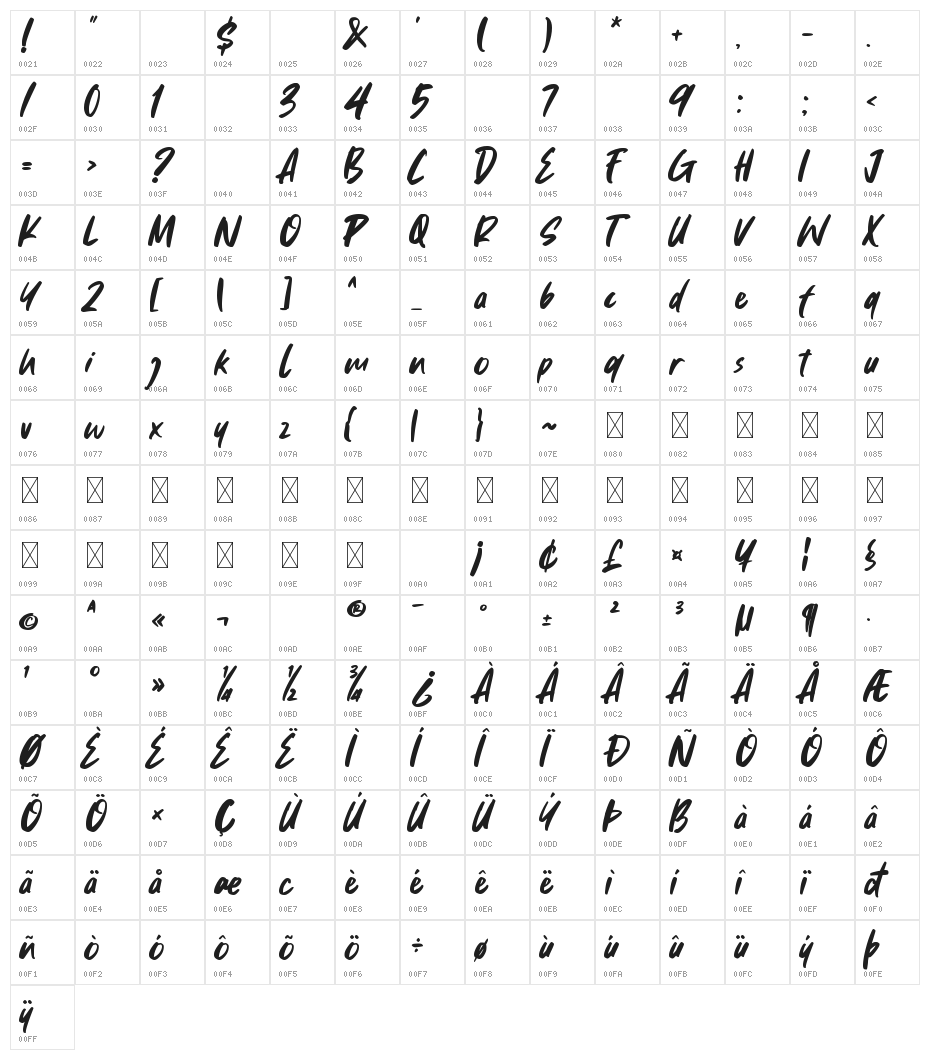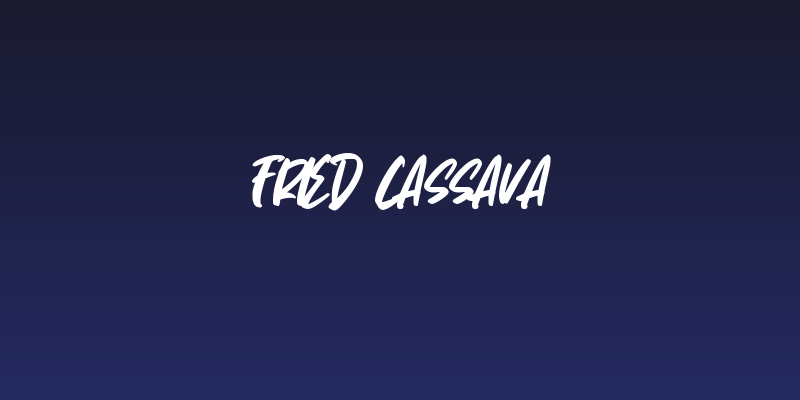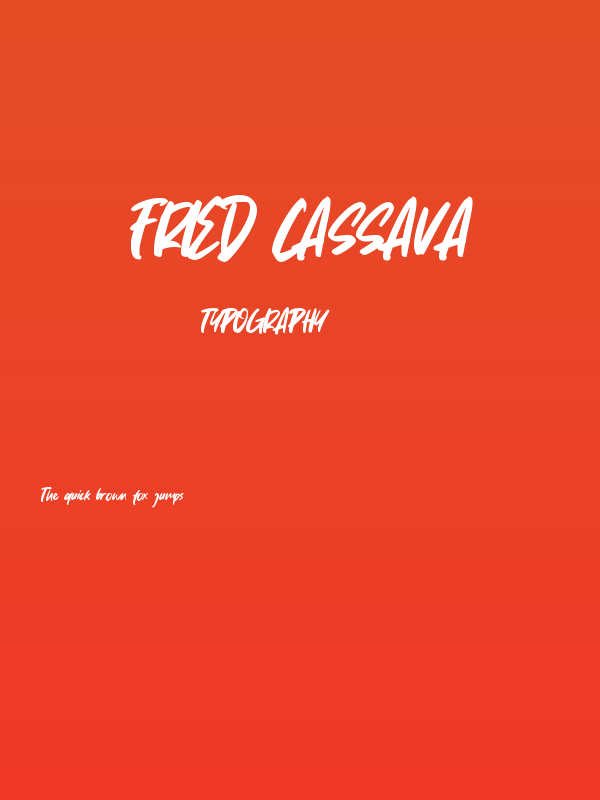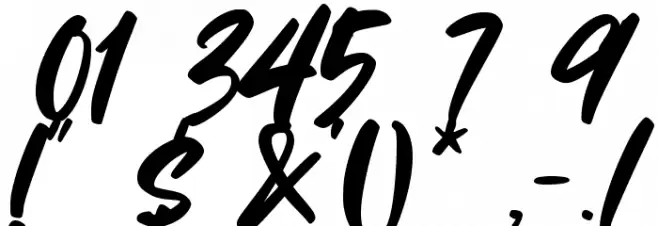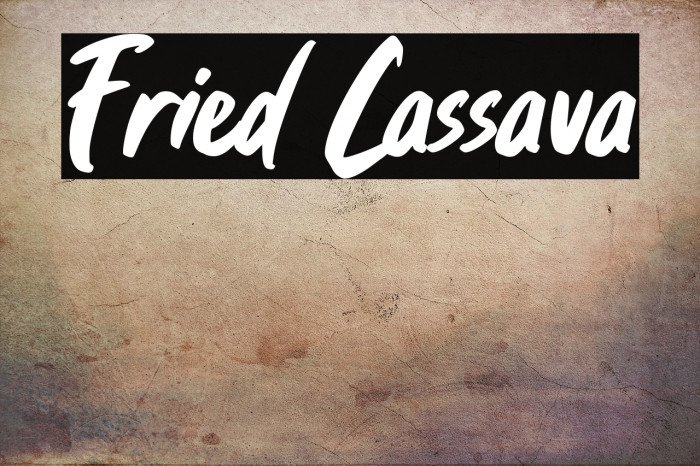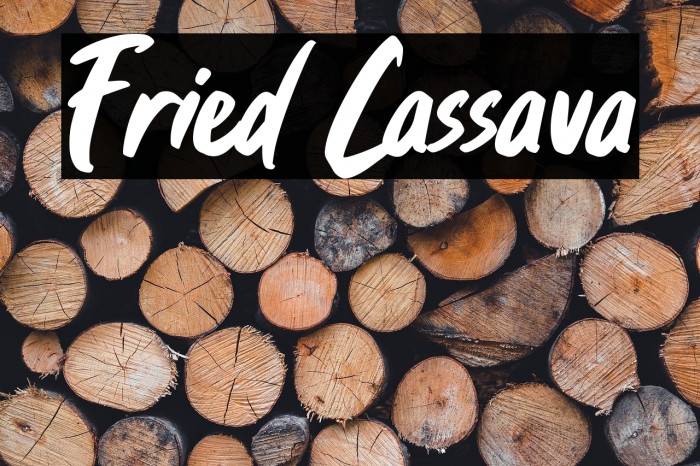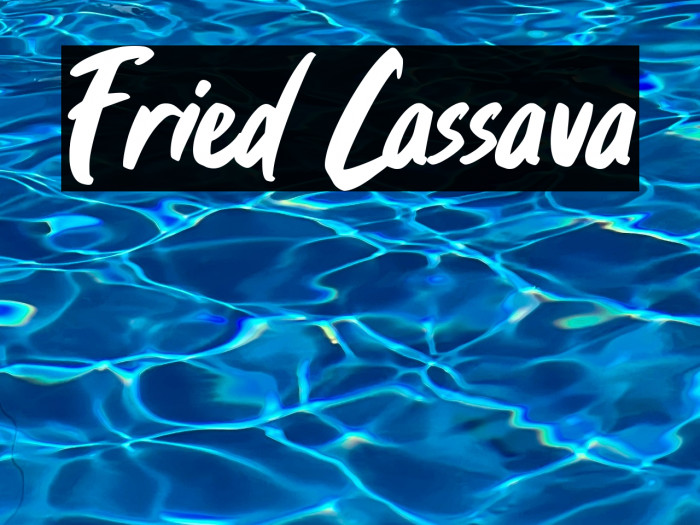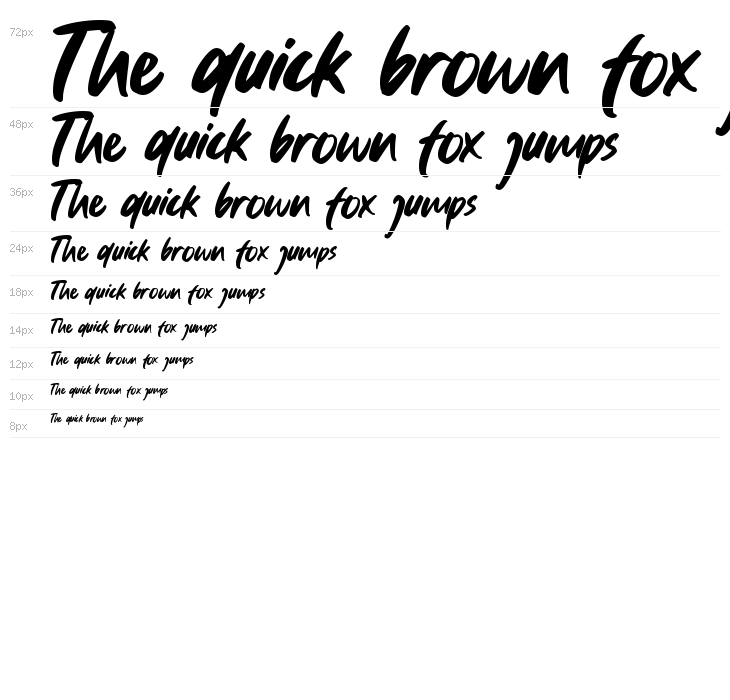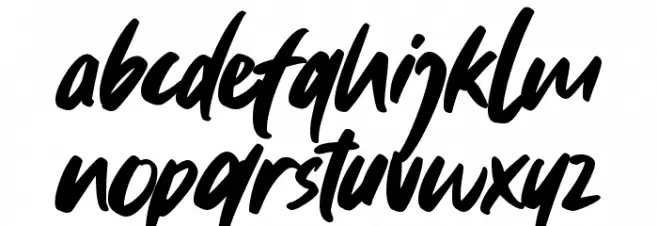
Fried Cassava Font
Fried Cassava Description
This font exhibits a bold, energetic script style with a hand-drawn appearance. The letters are fluid and dynamic, with a noticeable slant that adds a sense of motion and personality. The strokes are thick and consistent, giving the font a strong presence. The uppercase and lowercase letters maintain a cohesive style, while the numerals and special characters complement the overall design. This font is ideal for projects that require a personal touch or a lively, informal aesthetic.
| Proposed Projects | Ideal for branding, social media graphics, posters, and invitations where a personal and lively touch is desired. |